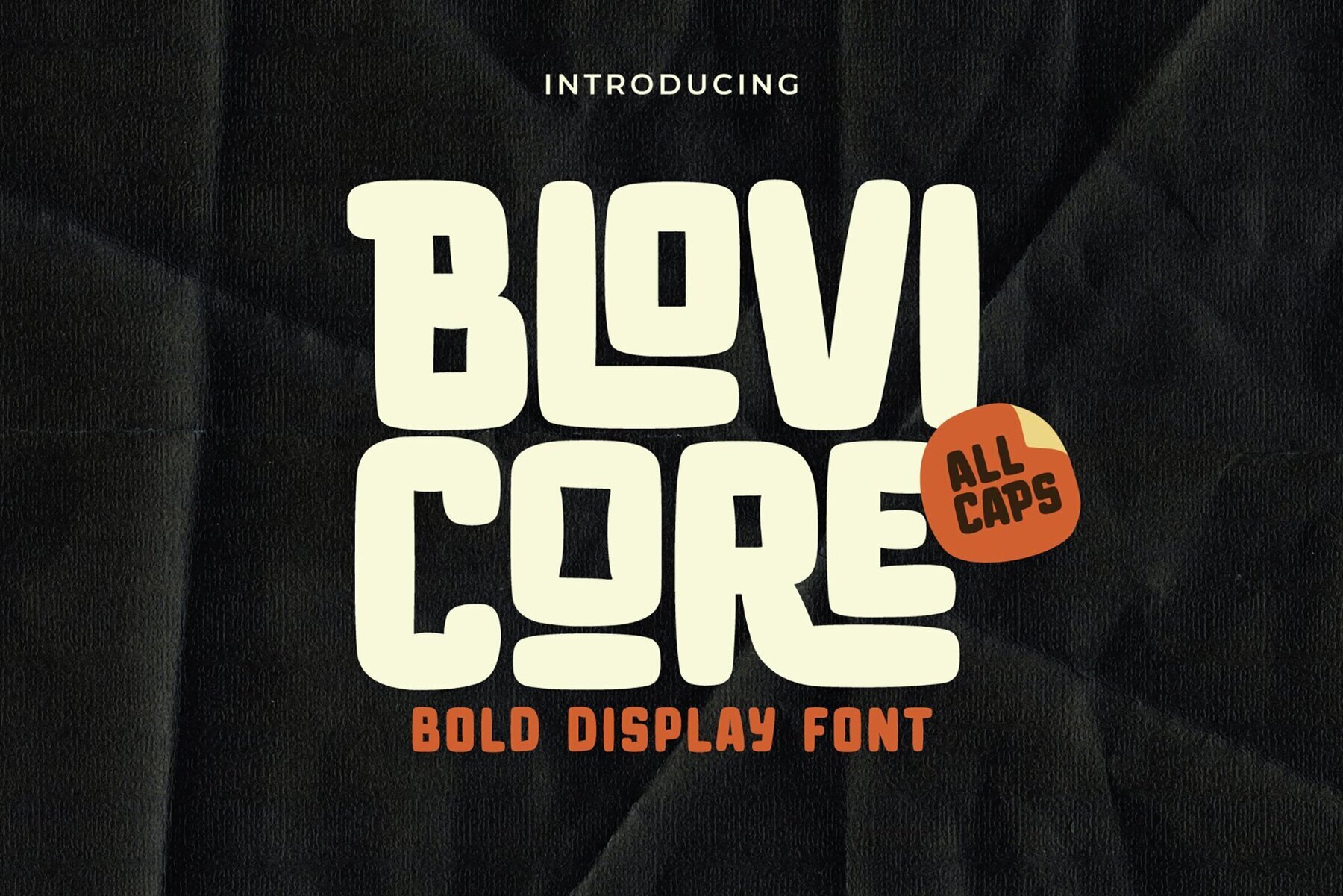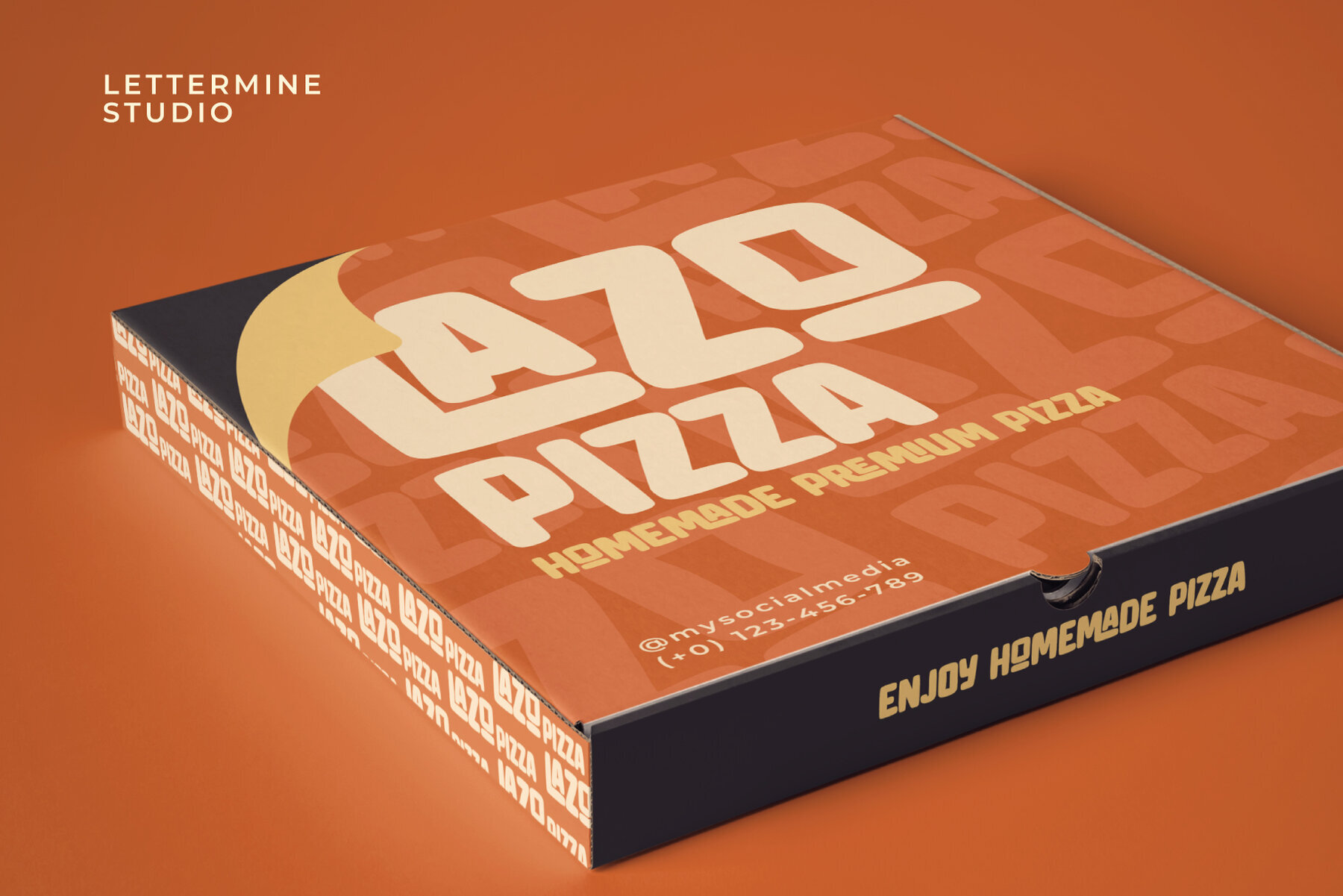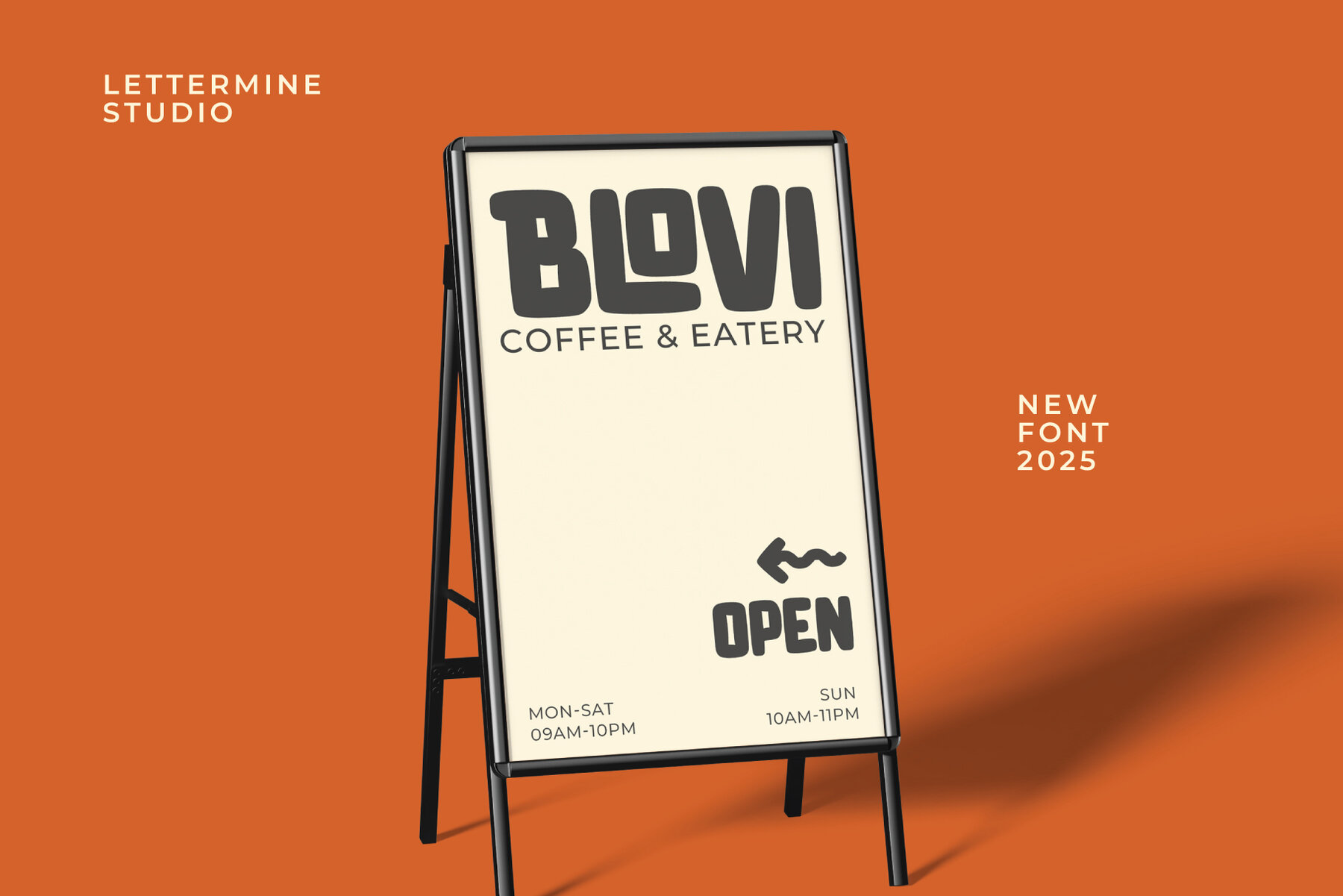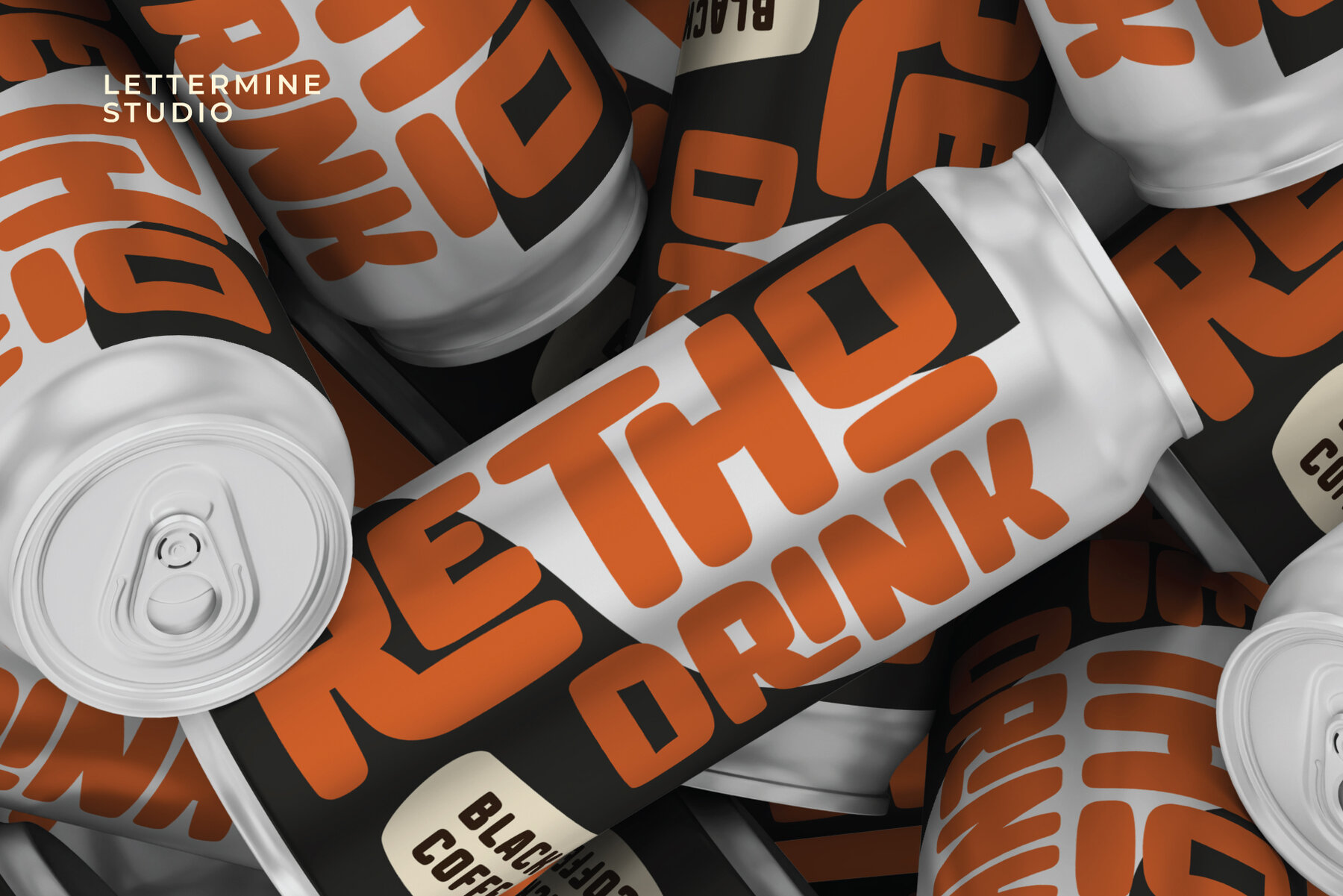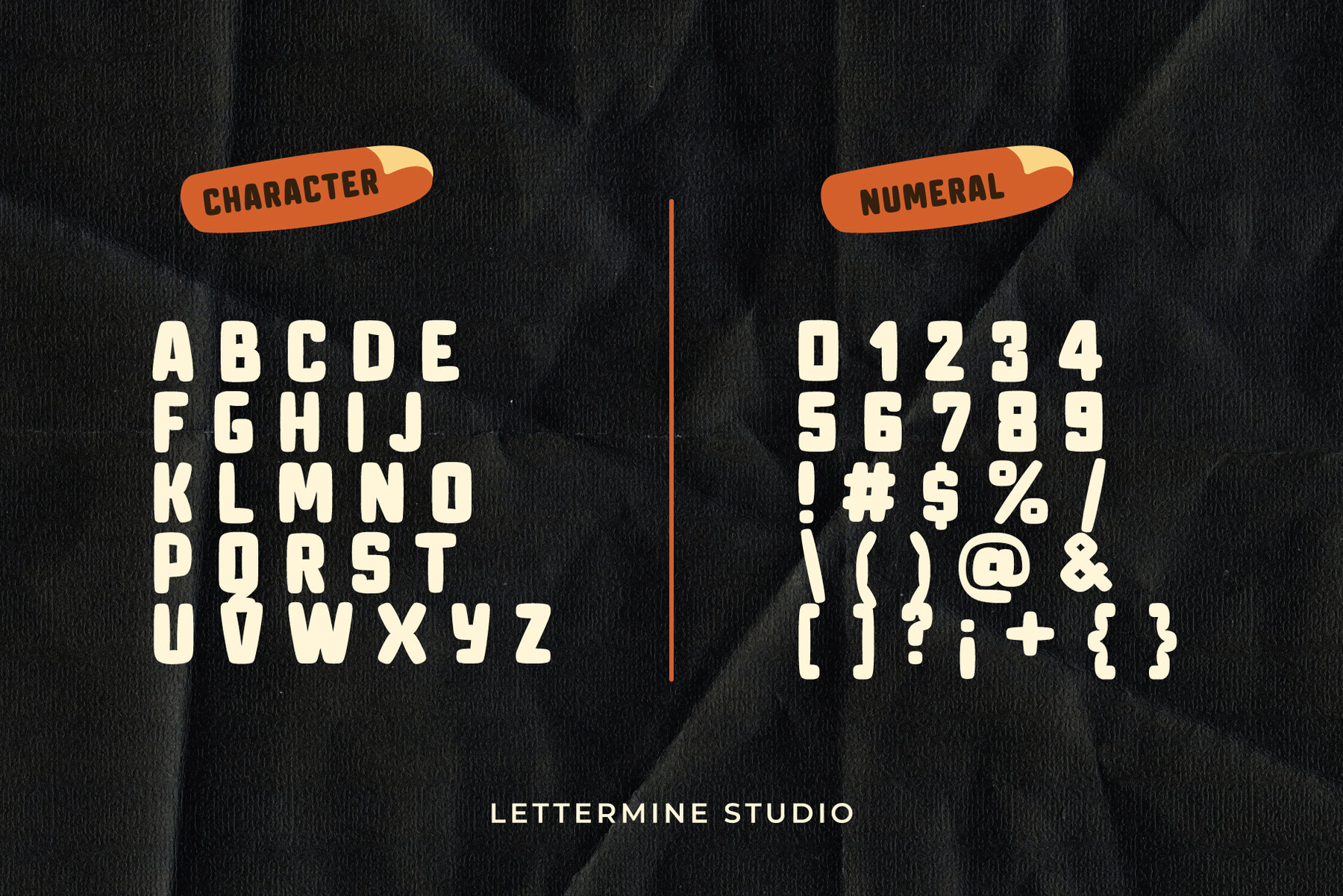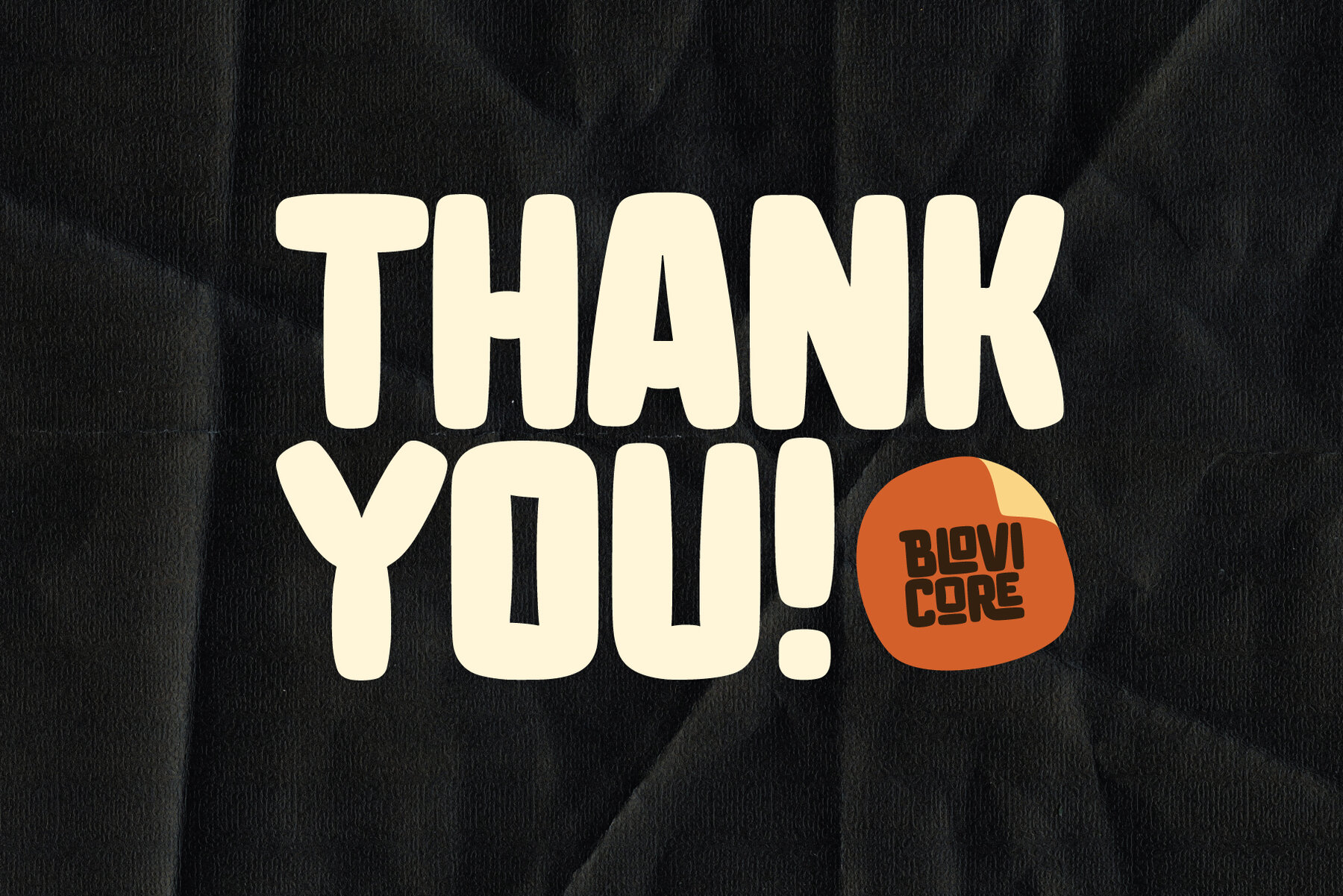
Blovi Core Font
Blovi Core
Inject a dose of fun into your designs with Blovi Core, a lively display font inspired by food-themed motifs. Its chunky, rounded letterforms convey a sense of cheerfulness and friendliness, ideal for projects that crave a playful and distinctive touch. Use it for packaging, menus, or logos, where its striking, smooth curves bring each character to life. Experience the bold flavor and irresistible charm of Blovi Core in every design.Blovi Core: A Bold Display Font